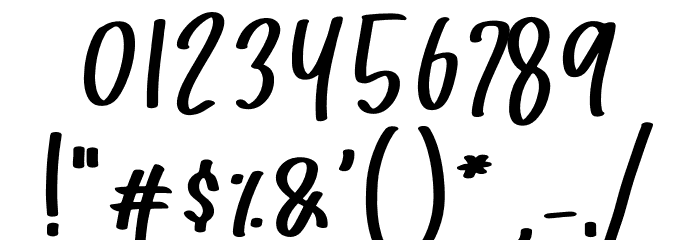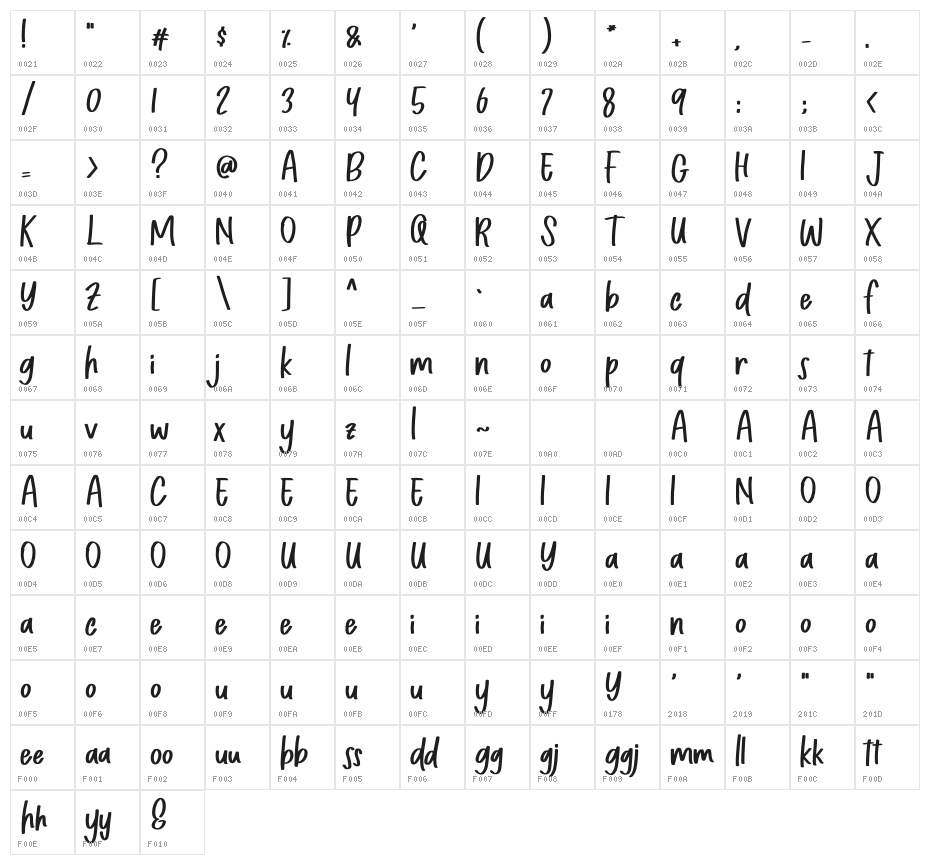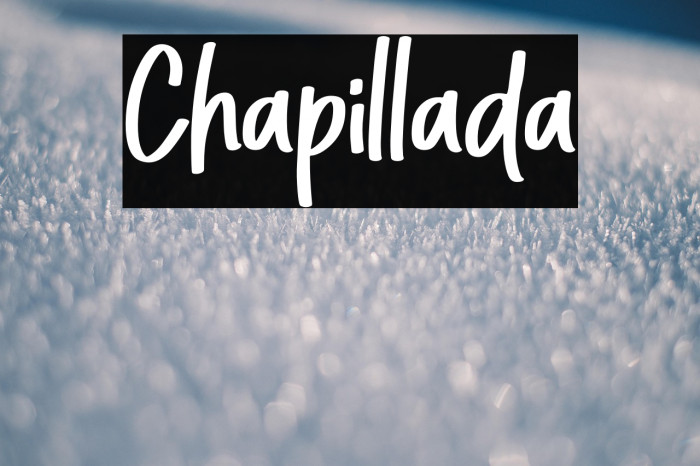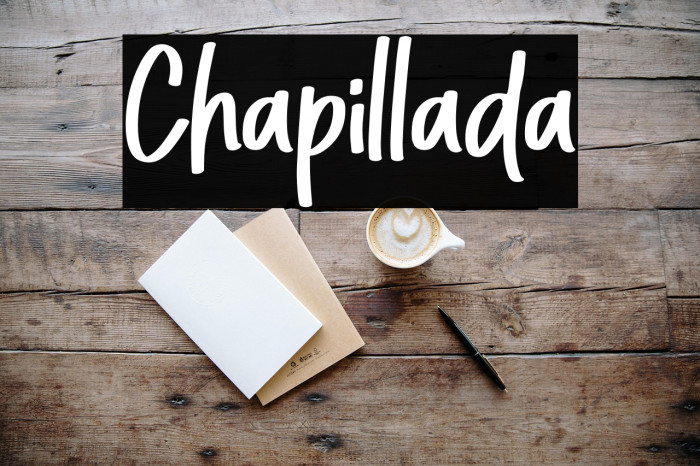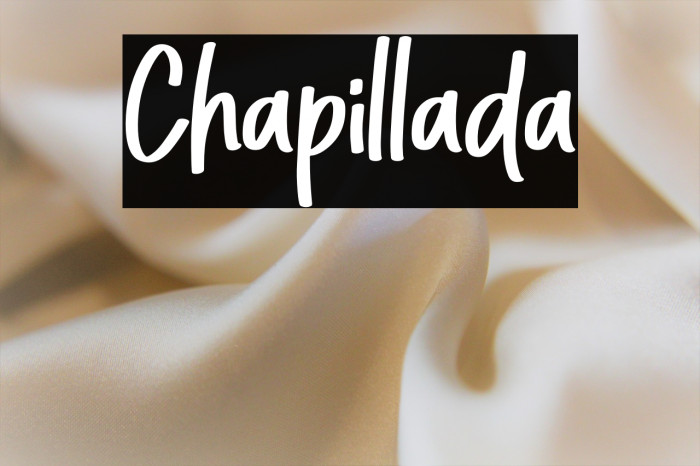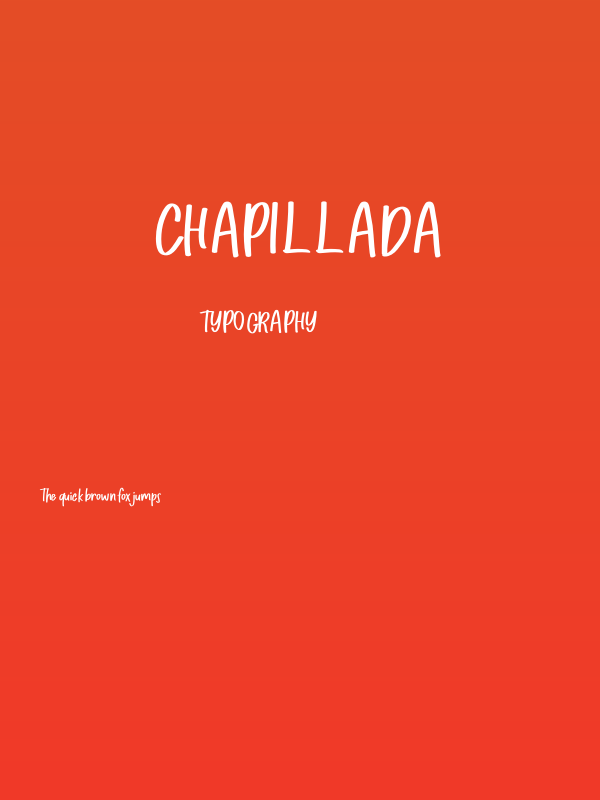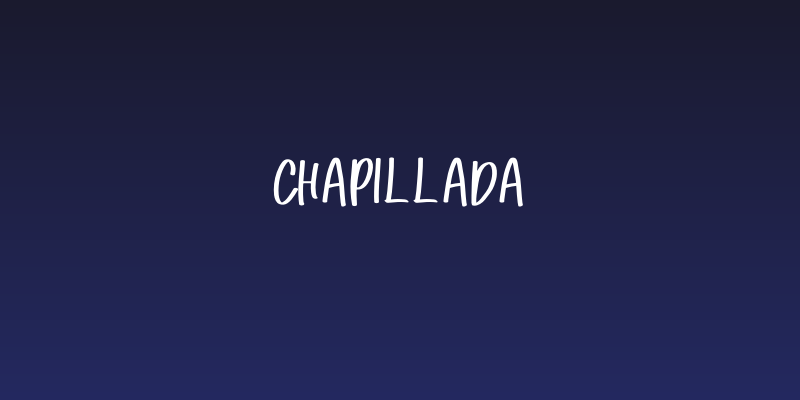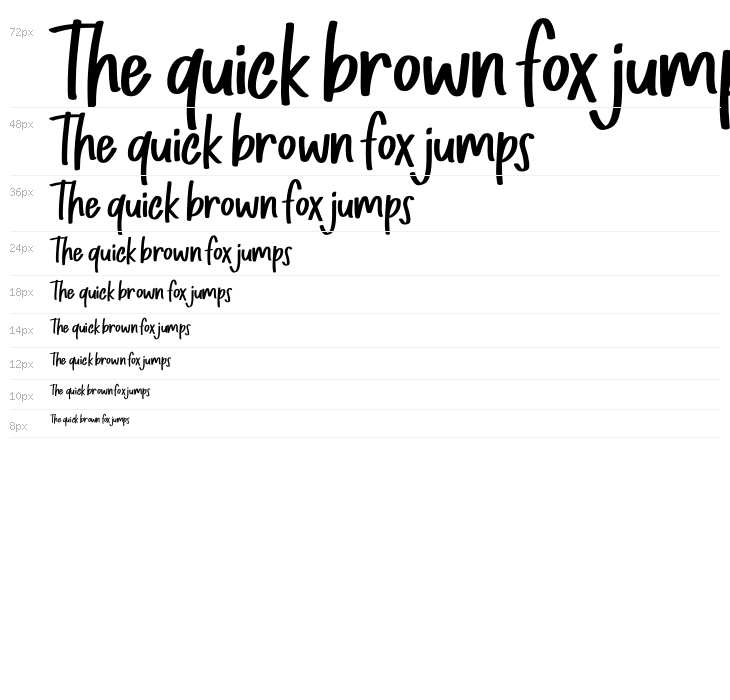
Chapillada Font
Chapillada Description
This font features a playful and energetic handwritten style, characterized by its bold and flowing letterforms. The uppercase and lowercase letters maintain a consistent rhythm, with slightly exaggerated curves and loops that add a sense of movement and personality. The numbers and special characters follow the same lively aesthetic, making the font versatile for various creative applications. Its informal and friendly appearance makes it suitable for projects that require a personal touch.
| Proposed Projects | Ideal for greeting cards, invitations, posters, and social media graphics where a personal and lively touch is desired. |